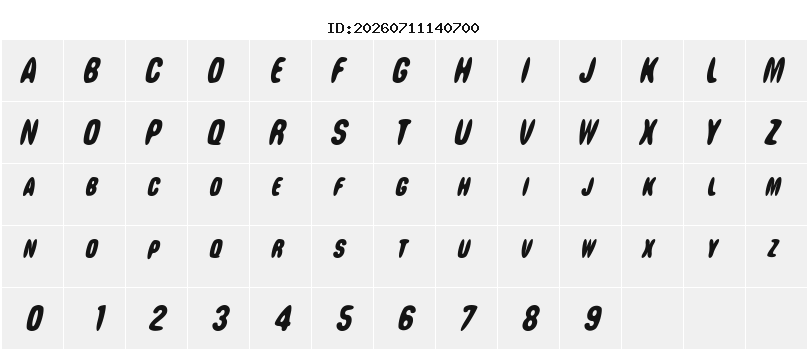
Margaline Preview
• Font Name: Margaline
• Full Font Name: MargalineItalic
• PostScript Name: MargalineItalic
About Margaline.ttf
Margaline.ttf is a modern, elegant sans-serif font designed for ultimate readability and visual harmony. Perfect for branding, headlines, web design, and print materials.